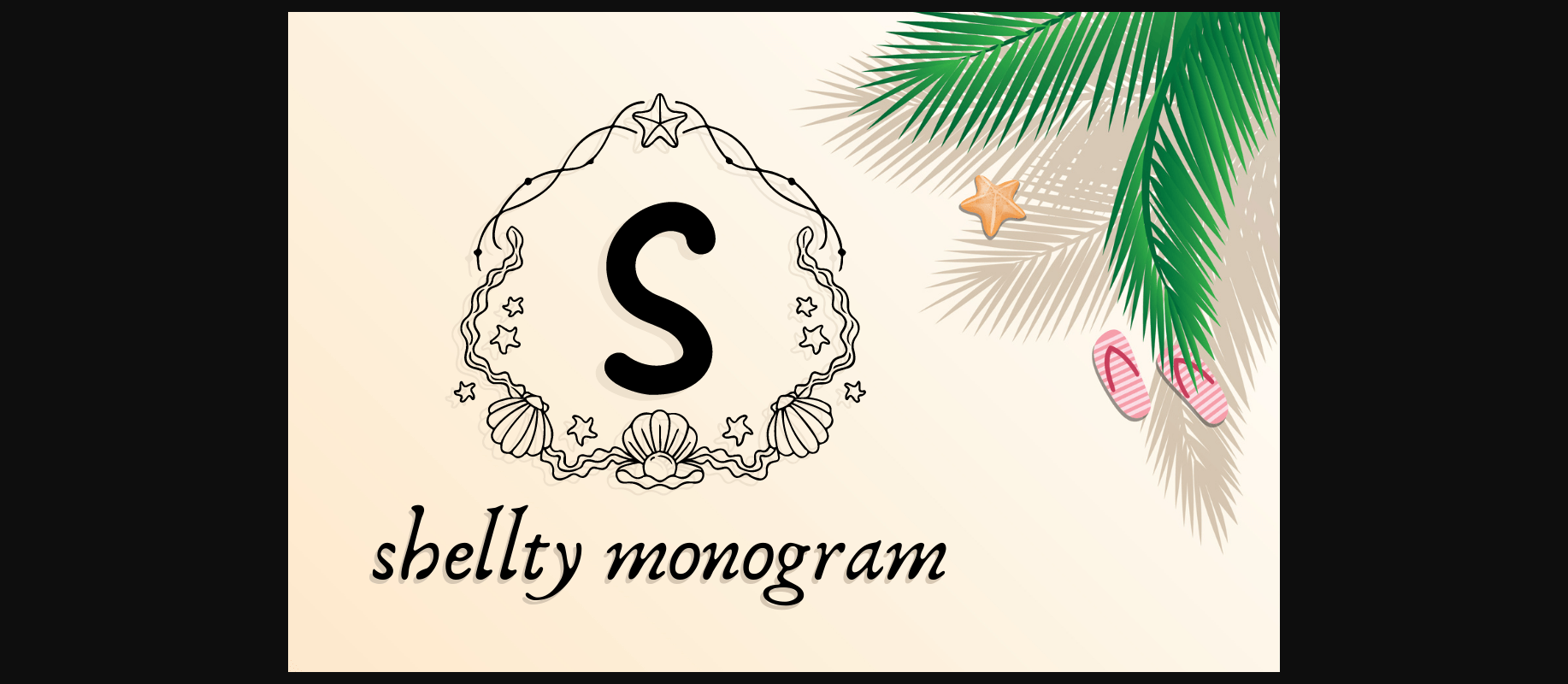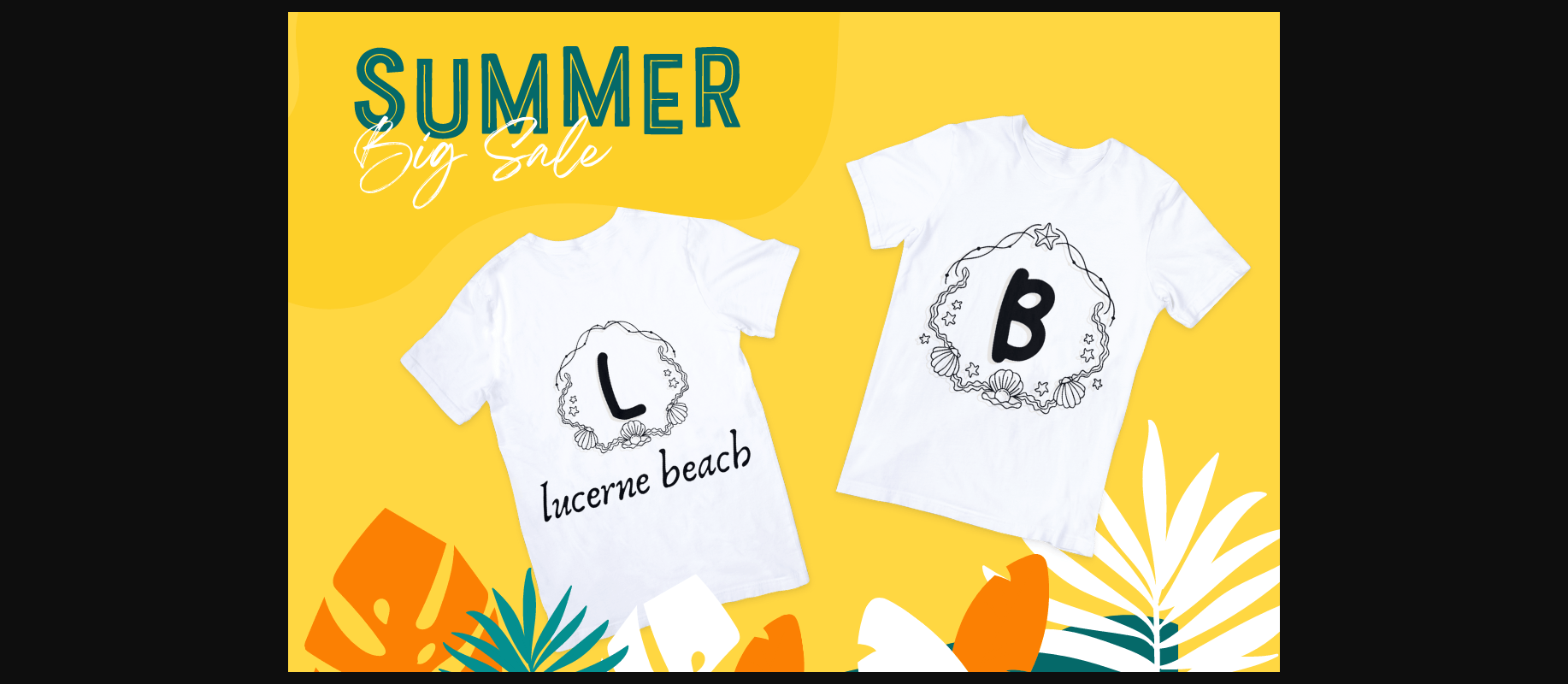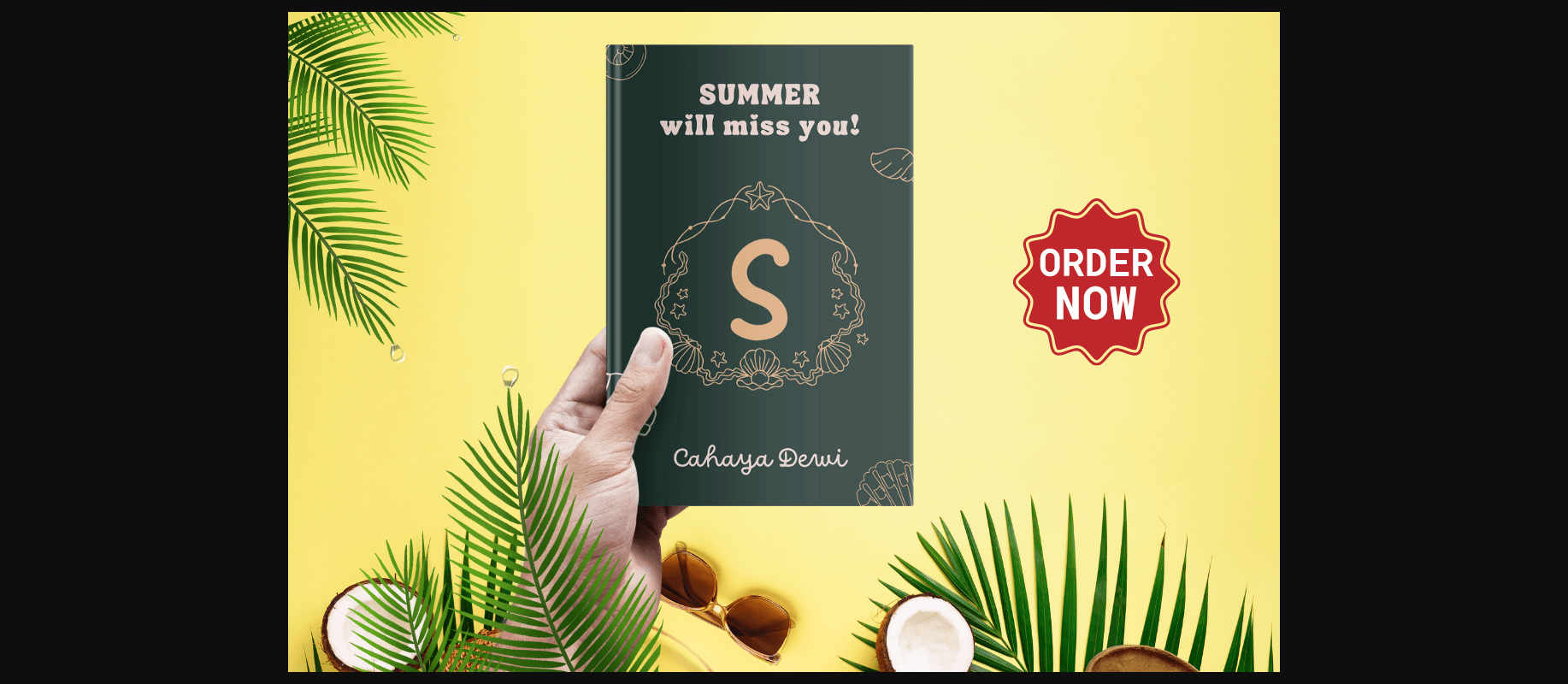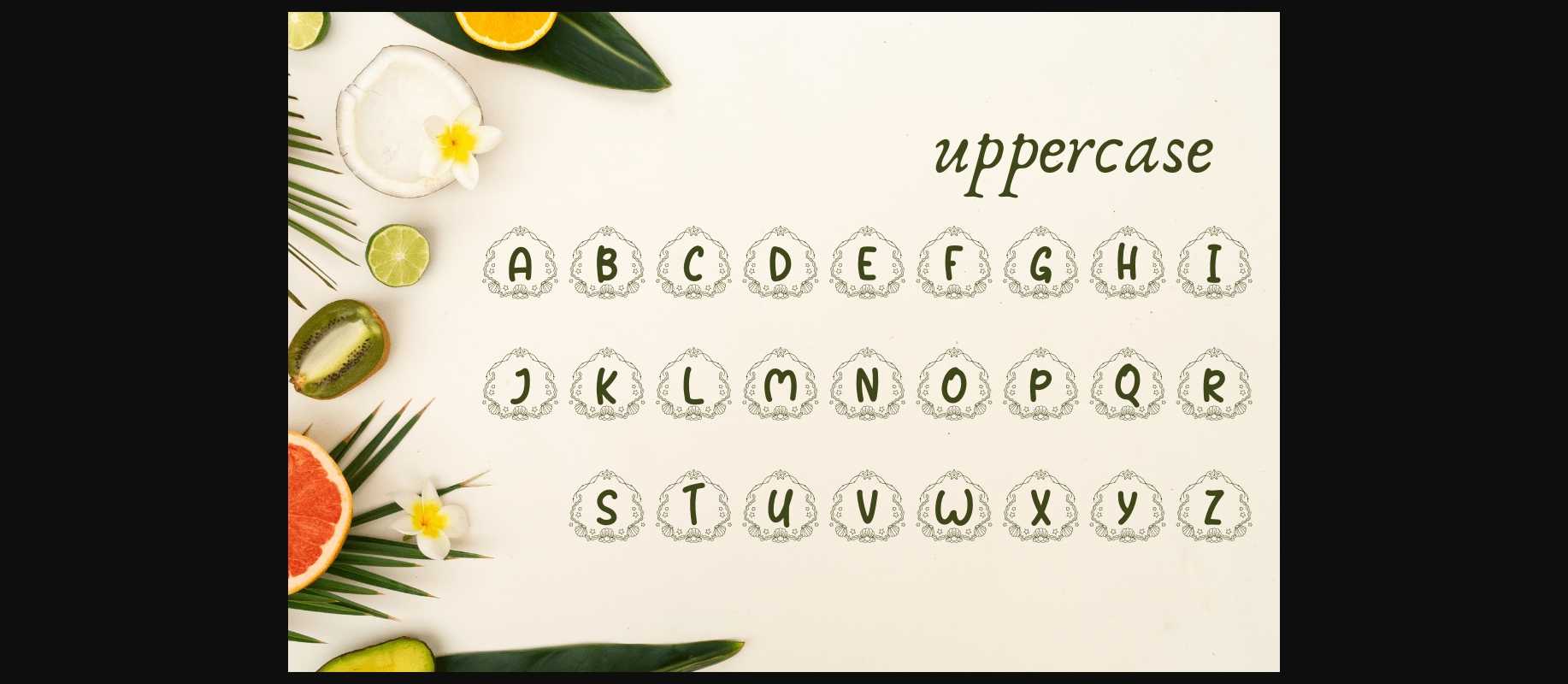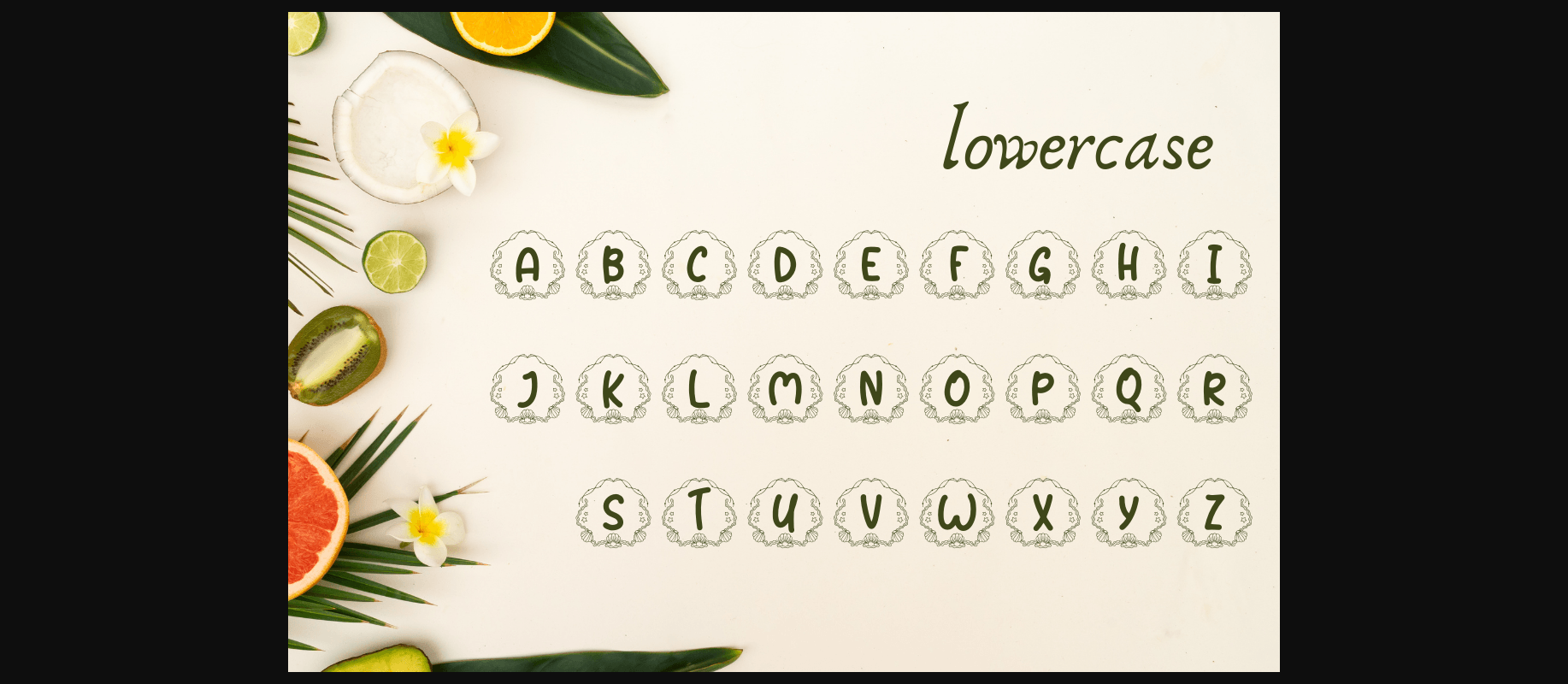
About Shellty Monogram Font
Shellty Monogram is a summer-themed monogram font. Fall in love with its lovely shells and lines, and use them for your special summer occasions, business designs, logos, branding, social media posts, and wedding cards.
Just simply change between uppercase and lowercase to see the different styles!